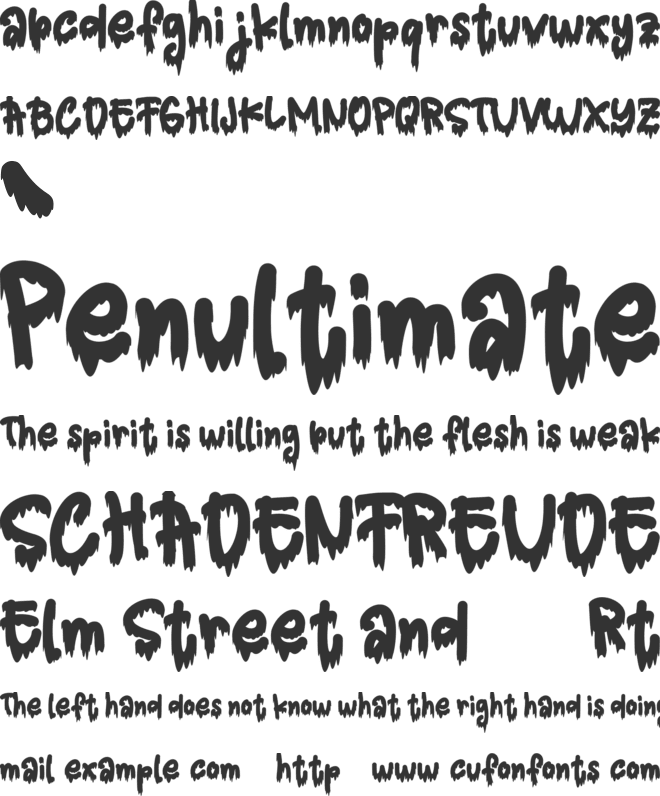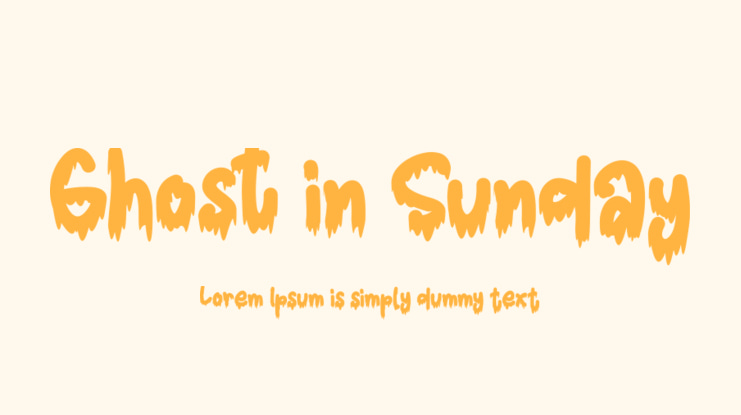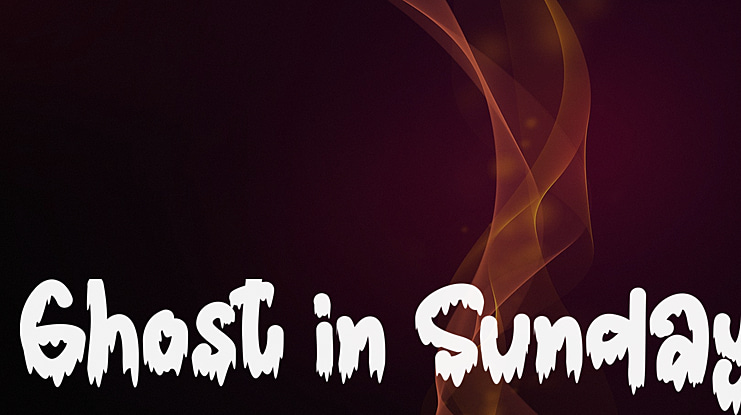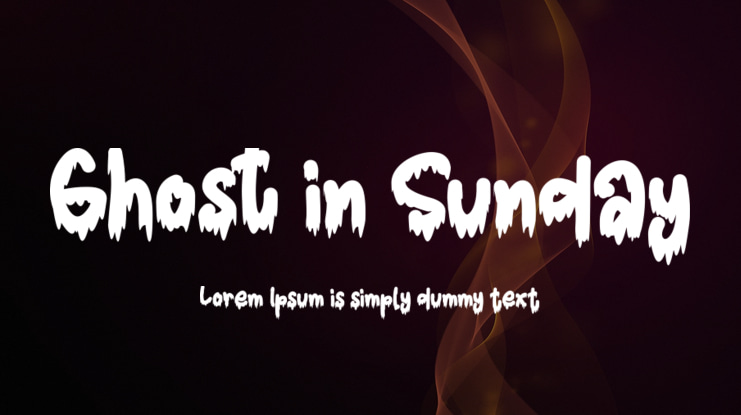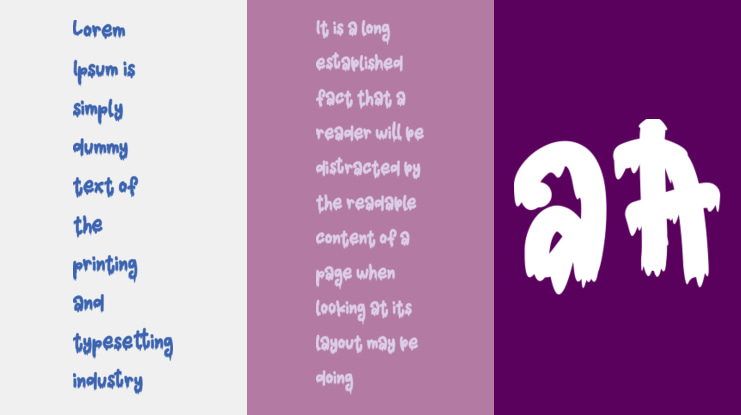
Ghost in Sunday Font
Ghost in Sunday is a creepy and spooky display font. Add it confidently to your Halloween creations and let yourself be amazed by the outcome generated.